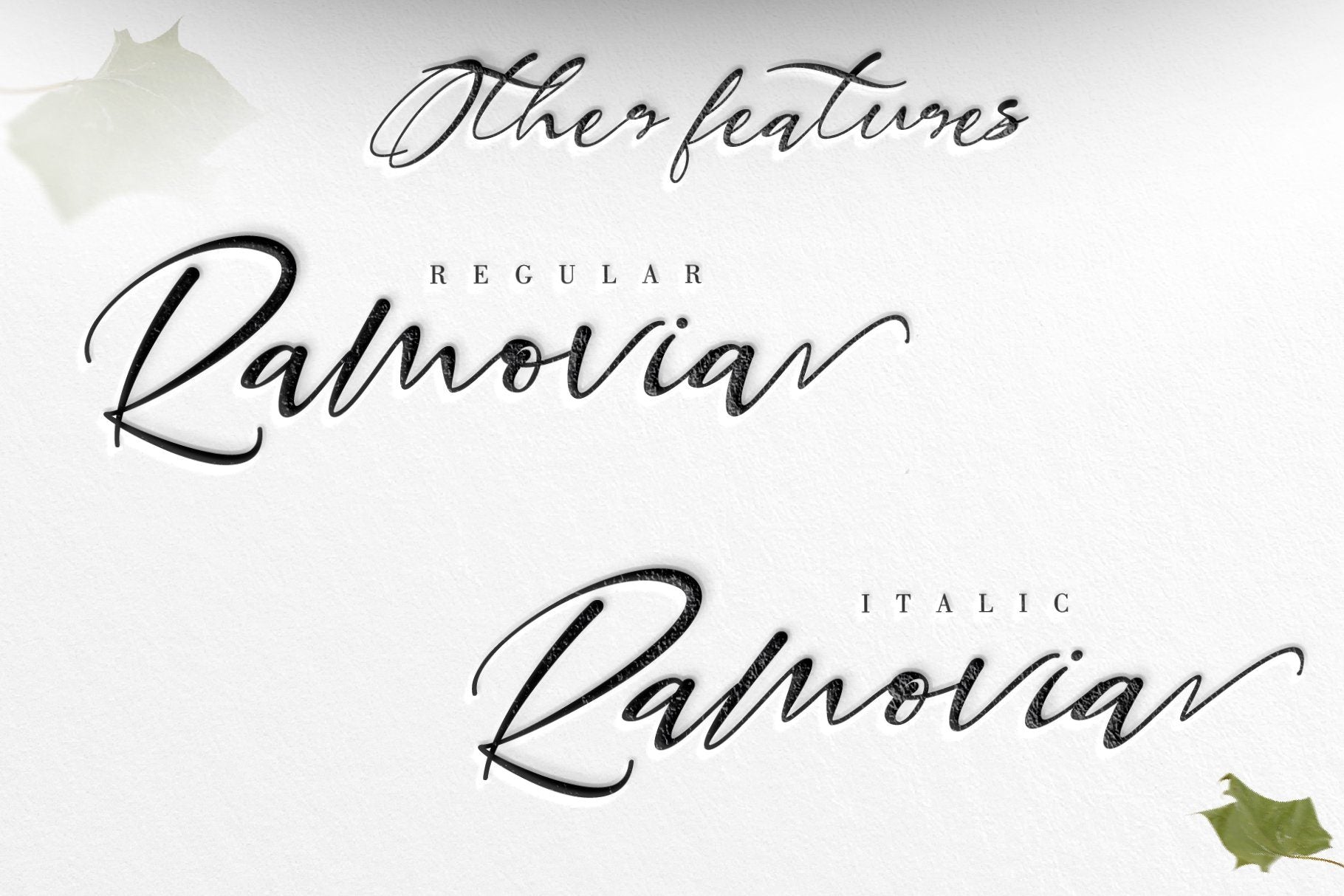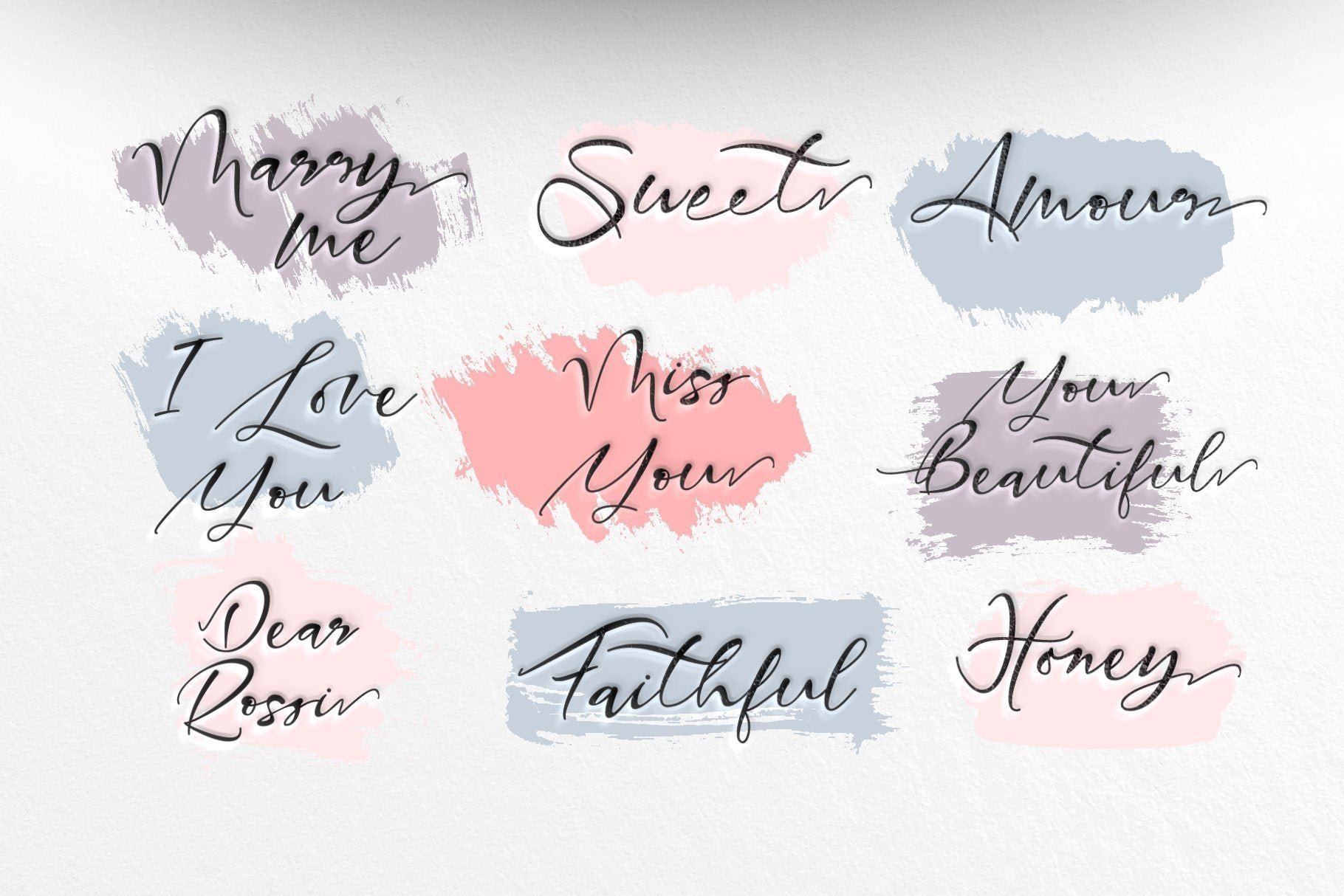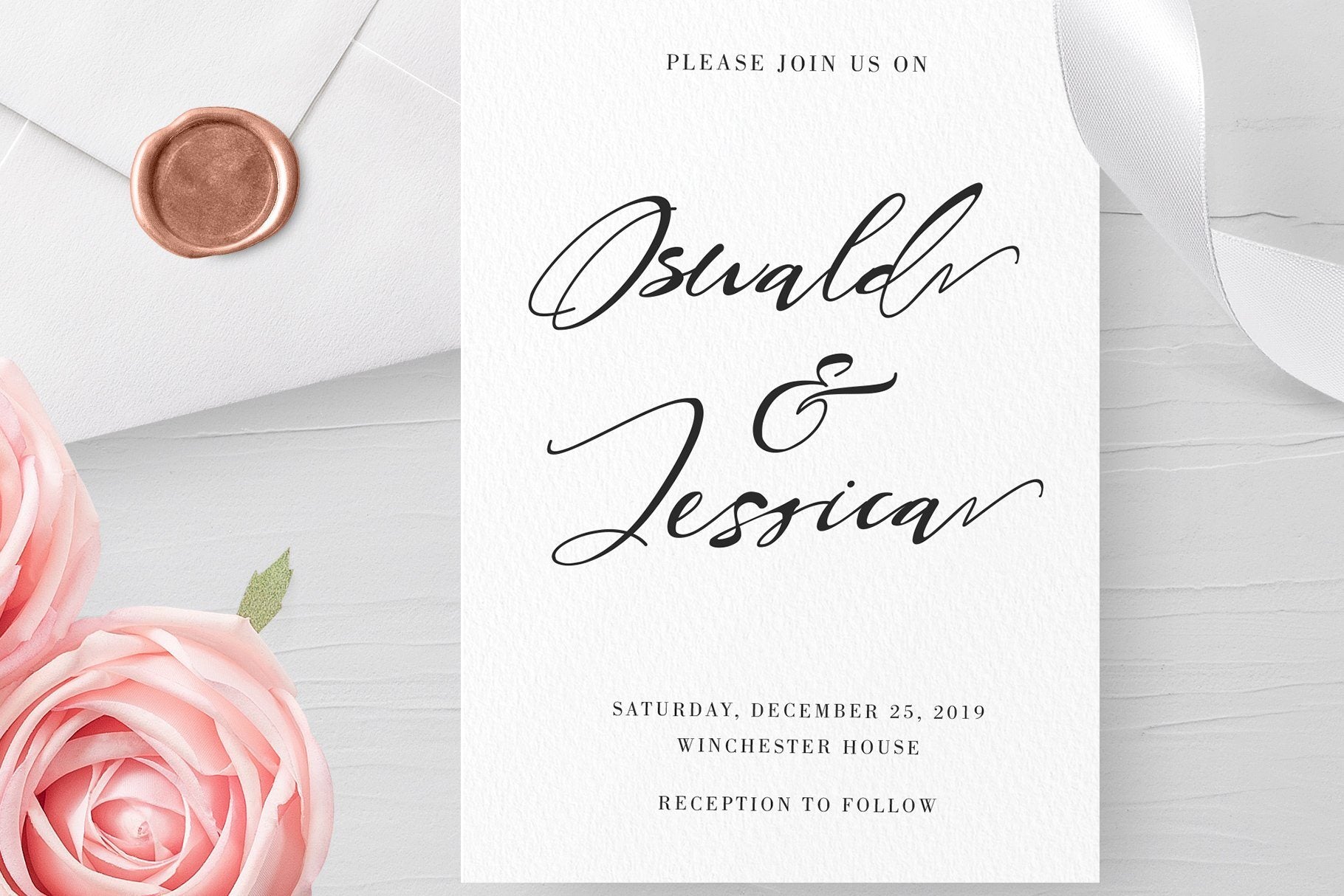
Ramovia is an elegant font for giving your designs a handcrafted yet modern feel. This clean handwritten looks great in both modern and classic designs. What’s included: Ramovia (OTF/TTF/WOFF) The style in this font includes: Regular & Italic Works both on Mac & PC Simple installations Swash & Ligature Accessible in the Adobe Illustrator, Adobe Photoshop, Adobe InDesign, CorelDraw, even work on Microsoft Word. Support multilingual; ä ö ü Ä Ö Ü ß ¿ ¡ To access the alternate glyphs, you need a program that supports OpenType features such as Adobe Illustrator CS, Adobe Photoshop CC, Adobe Indesign and CorelDraw. More information about how to access alternate glyphs, check out this link ( http://goo.gl/ZT7PqK ) To stay up to date for my latest job, follow me and let’s be friends because there will be many promos. Thanks for checking out my store, and feel free to get in touch if you have any questions!  don’t wait anymore, put it in your shopping basket 🙂 and follow me, because there will be many promos! Our other products : BEST SELLER JENNIE BLACK PINK SIGNATURE ANDORA BRIGITTA HEANFFE EIFFEL IN LOVE ( FONT TRIO) BLACK PINK SUMMER HONG KONG ANGEL MALEFICENT California Street BESTOWENS FAMILY